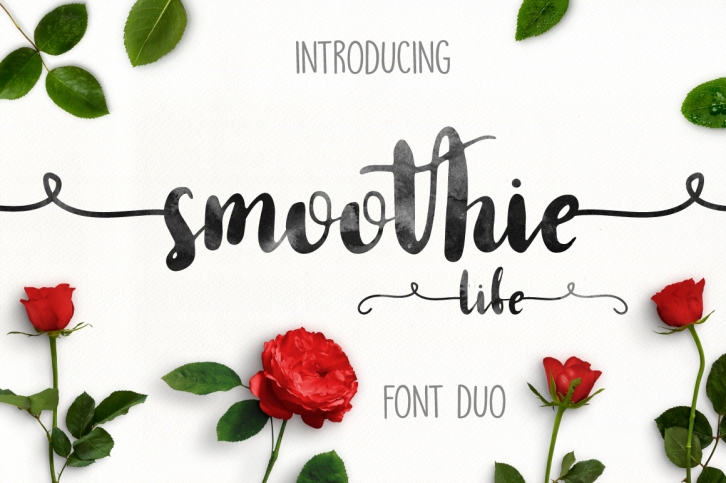
Smoothie Life [ Duo] is a great font that was designed by Julia_Dreams. Imagine the amount of combinations you can create using this font! The archive is 16.78 MB and it was released on June 4, 2017. Smoothie Life [ Duo] looks beautiful on wedding invitations, greeting cards, logos, posters, labels, t-shirt designs, logos, business cards and is perfect for use in ink or watercolor works, fashion, magazines, packaging and food menus, children's books and more!